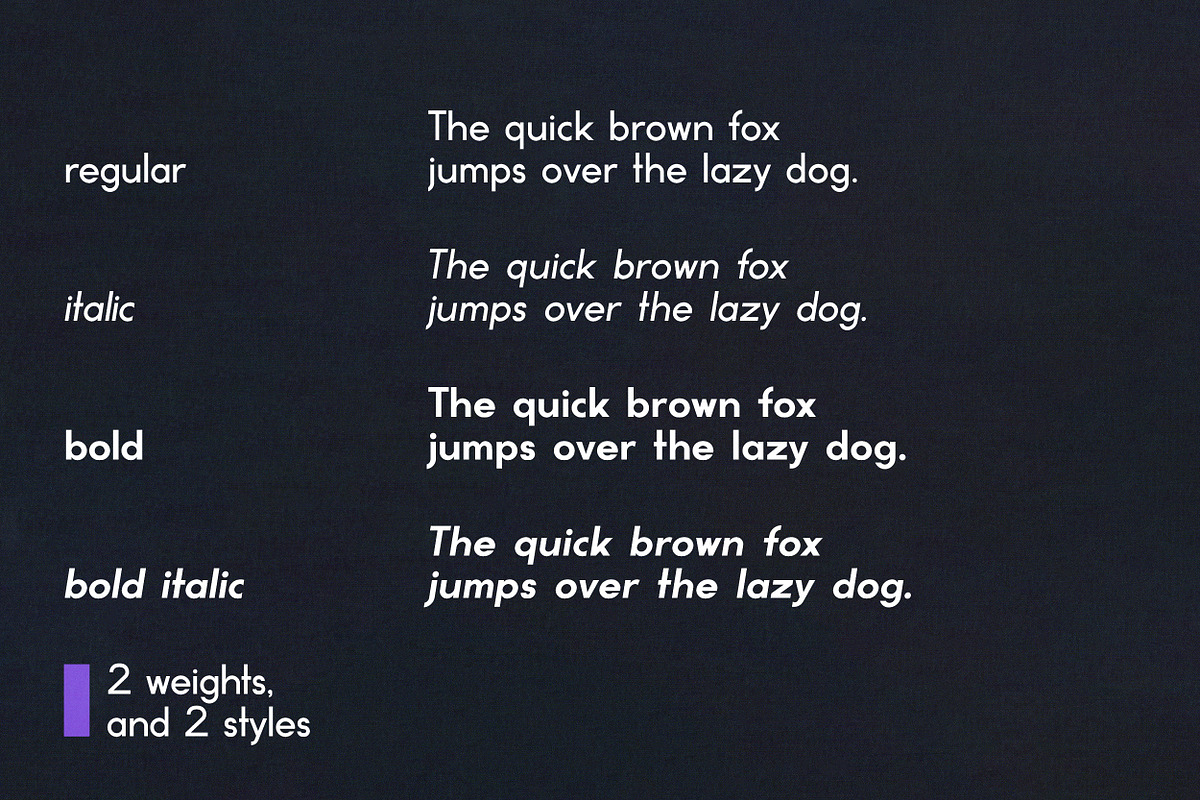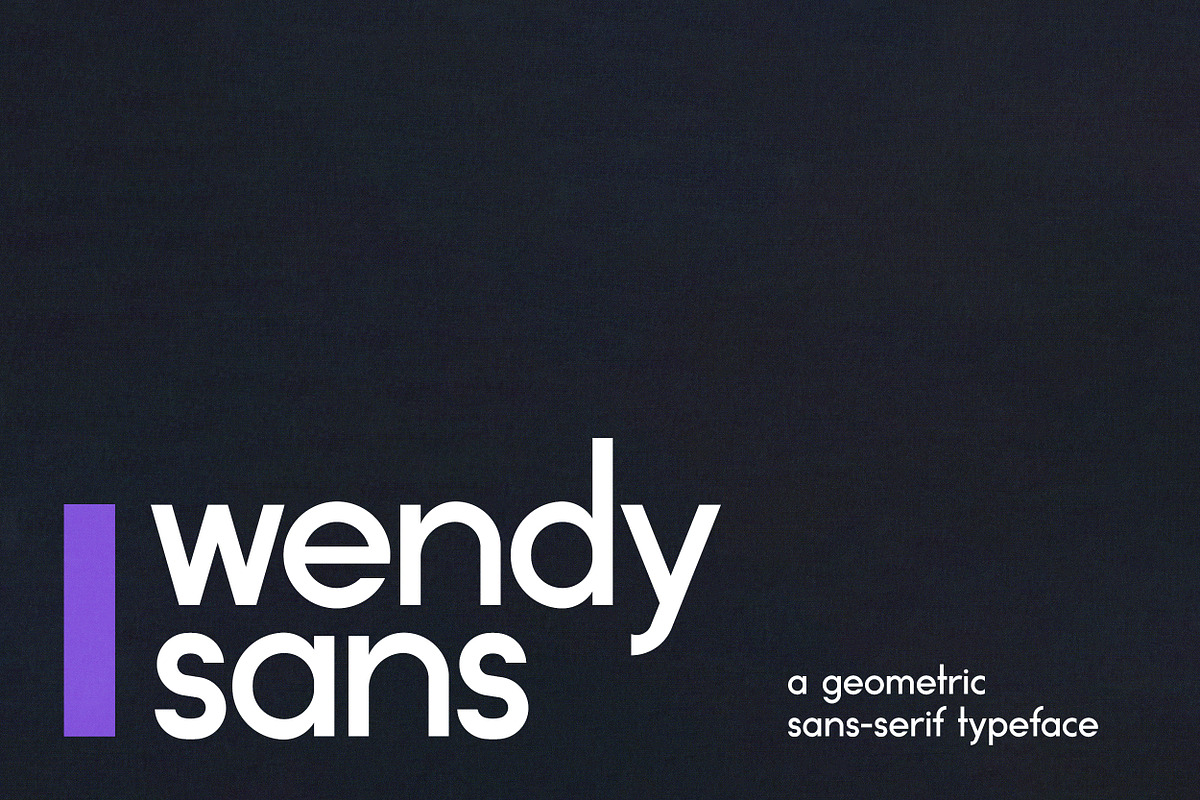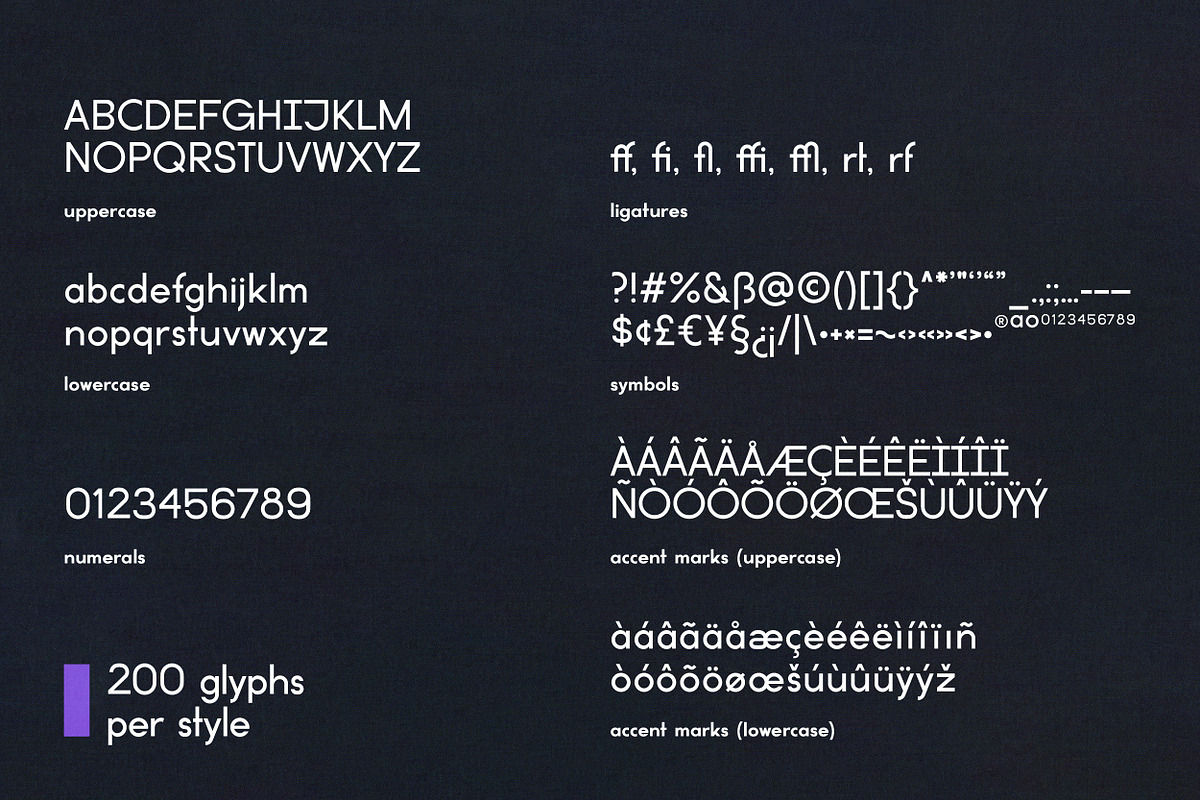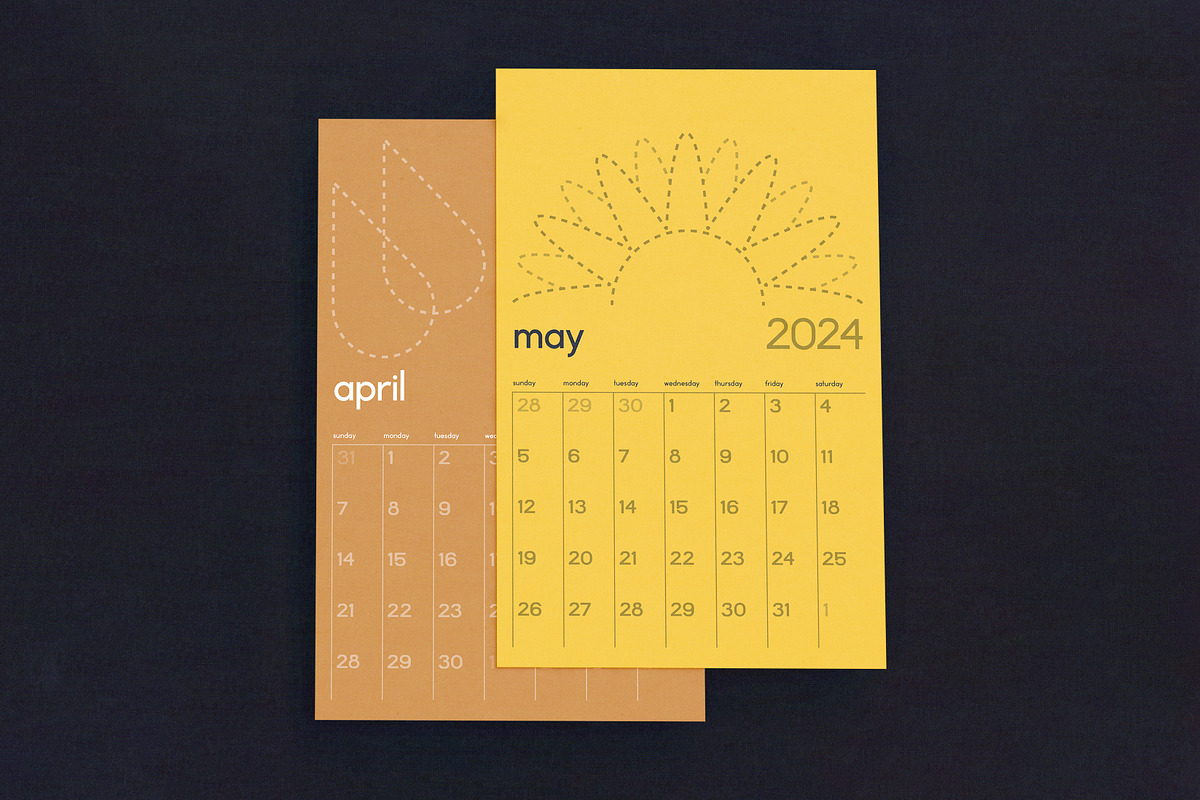
wendy sans | geometric sans-serif
The geometric typeface came to life through attempts to better understand the effort that goes into creating typefaces that are adaptable; where designers can use them in large displays and also in small copy. With Regular, Italic, Bold, and Bold Italic styles, wendy sans aims to function as another design tool that allows for expression, while still putting the main focus on legibility.
Each style contains 200 glyphs, including:
- Capital letters
- Lowercase letters
- Accent Marks (Uppercase and Lowercase)